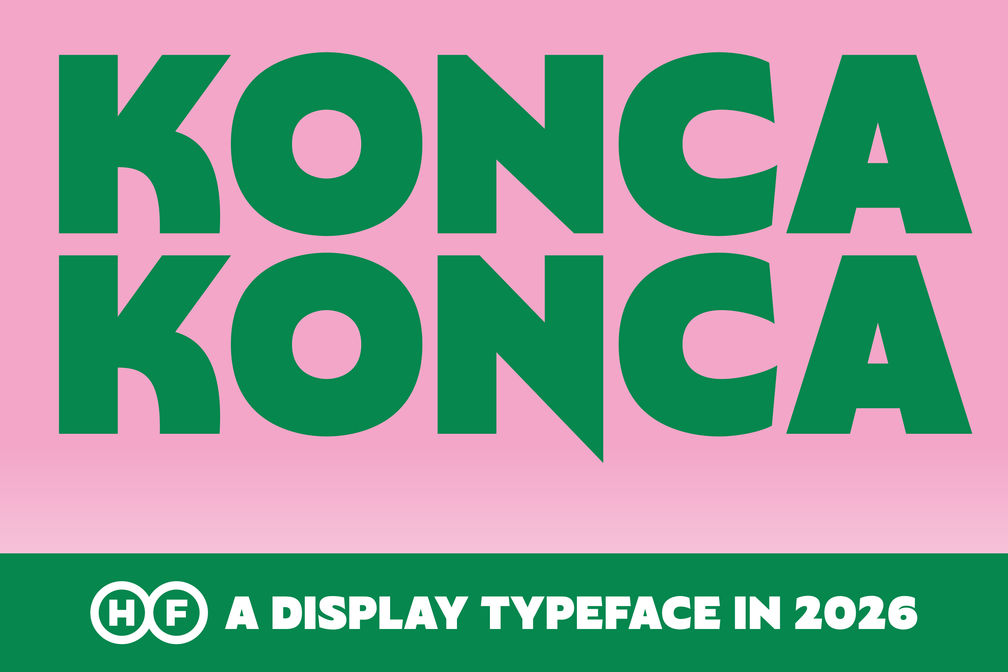
Konca HF Display Bold
Meet Konca, an ultra-bold display typeface created to bring raw energy, solid balance, and a friendly modern punch to your design projects. Designed with thick, expressive stems and subtly softened contours, Konca immediately anchors any composition with undeniable weight and charm.
Whether you are designing punchy festival posters, standout product packaging, vibrant streetwear apparel, or impactful website banners, Konca delivers absolute clarity and unmistakable style. Its hefty proportions give titles and branding assets a warm yet commanding presence that captures viewers right from the first glance.
• High-impact ultra-bold weights for display versatility
• Clean vector geometry with smooth edge finishes